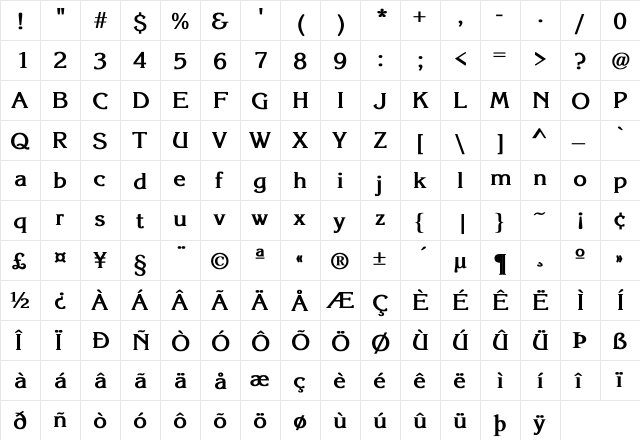
Corinna Bold
Design Context for Corinna Typeface
Corinna takes a measured approach to typography — its balanced proportions and neutral character make it a reliable workhorse for both digital and print work. Its bold stroke weight gives it real presence on the page.